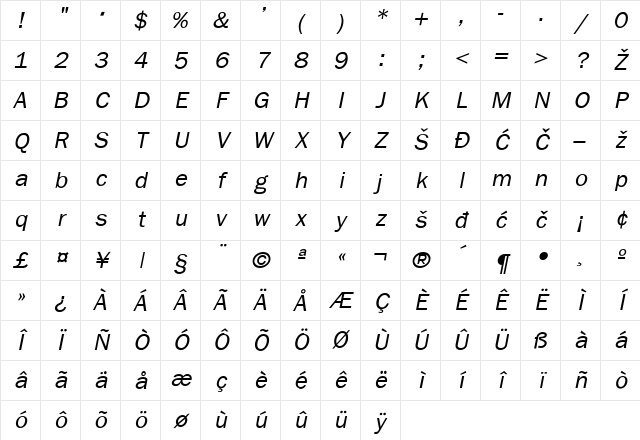
0Fran-I Regular
Design Context for 0Fran-I
0Fran-I is a composed and adaptable typeface that performs quietly and consistently across a wide range of design contexts.